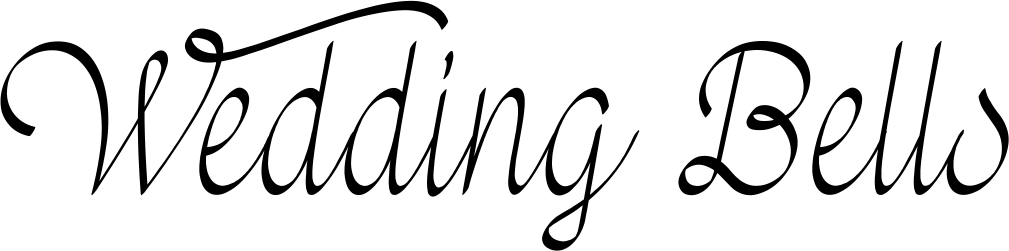
Mf Wedding Bells Font
Mf Wedding Bells is a calligraphy font that comes with elegant, cursive characters that add to the feminine vibes. It will help you make your brand seem more graceful yet formal to your target audience. Apart from brandi…
Mf Wedding Bells is a calligraphy font that comes with elegant, cursive characters that add to the feminine vibes. It will help you make your brand seem more graceful yet formal to your target audience. Apart from branding purposes, you can also use Mf Wedding Bells in product packaging, videos, greeting card designs, hand-lettering as well as more design areas!